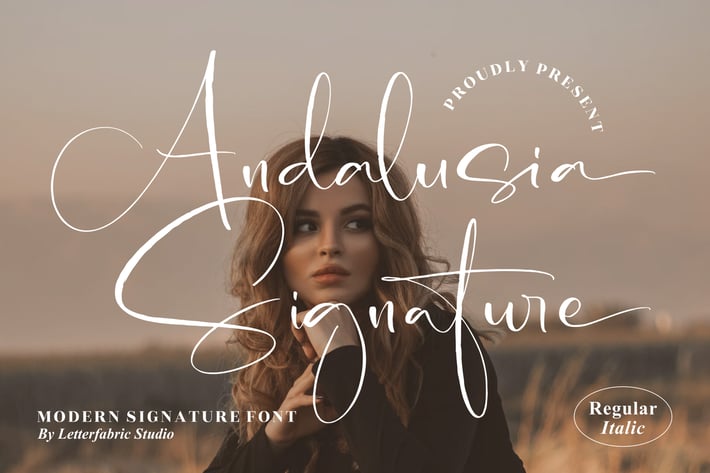
Andalusia Signature Font
Andalusia is a modern signature script font that blends elegance and femininity with natural handwriting flow. With two styles—Regular and Italic—Andalusia is perfect for creating personal branding, feminine logos, wedding invitations, Instagram quotes, and lifestyle designs.
Each character is carefully crafted with smooth ligatures and long swashes, giving your work an effortlessly chic vibe. Andalusia is perfect for designers who want a clean yet expressive handwritten touch.
+ Regular and Italic styles
+ Ligatures and swashes
+ Multilingual support
Perfect for:
+ Feminine Branding
+ Wedding Invitations
+ Quotes
+ Social Media Posts
+ Blog Headers